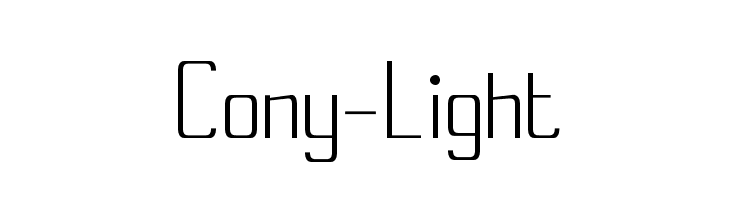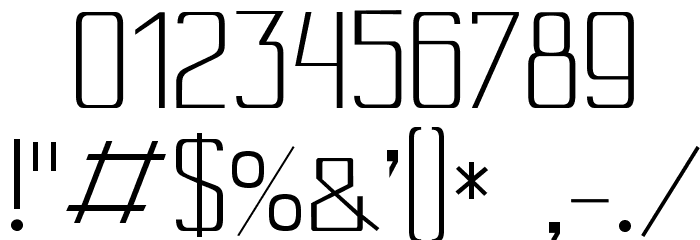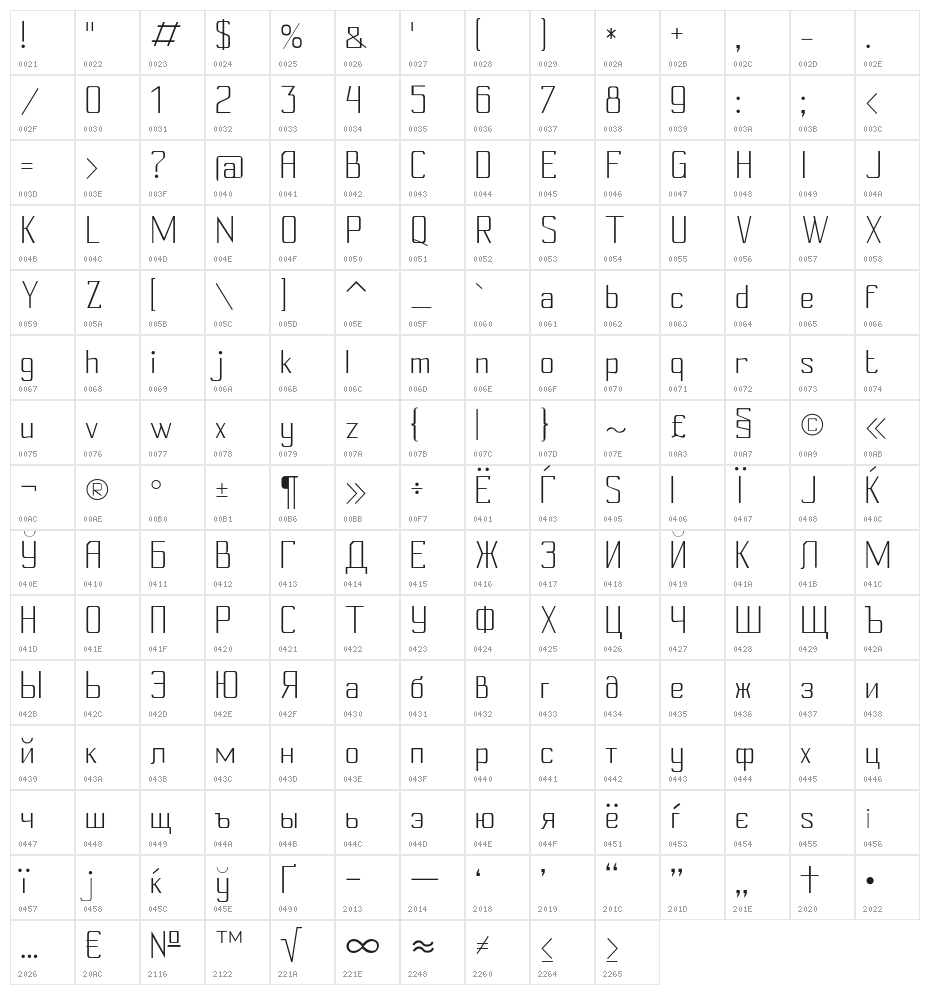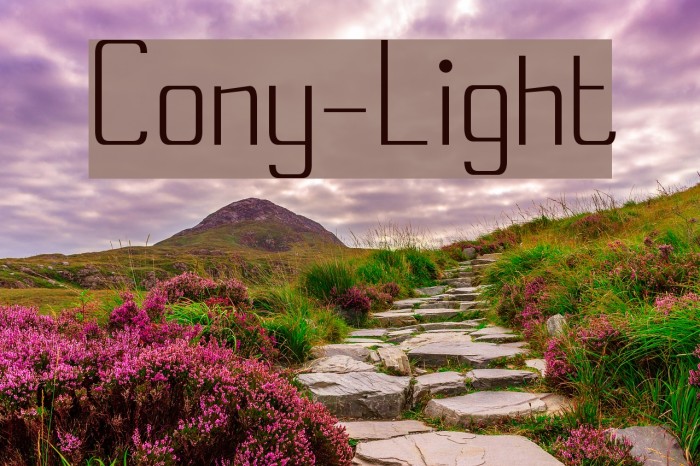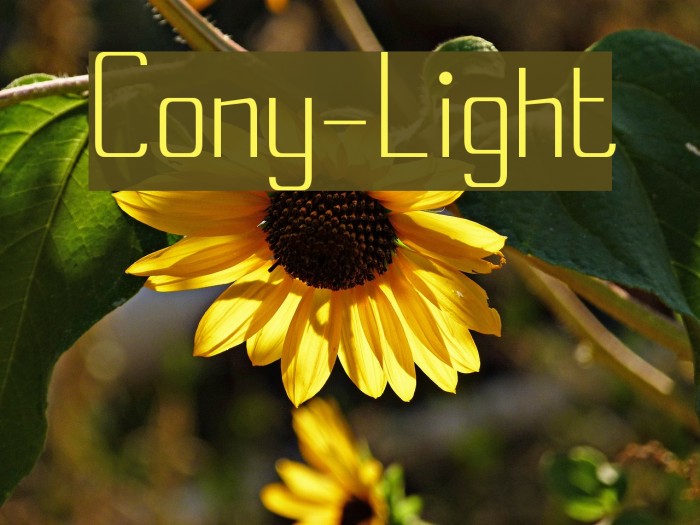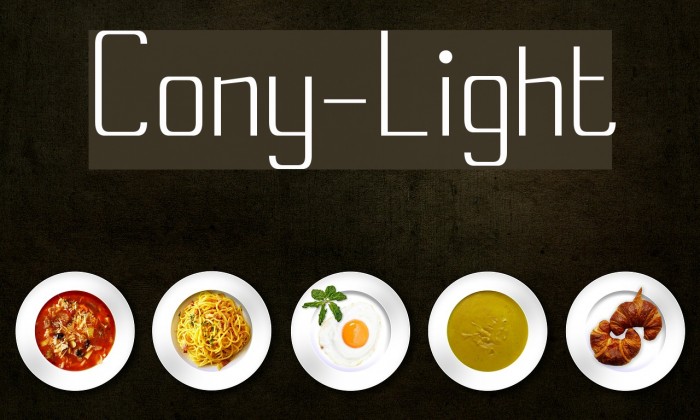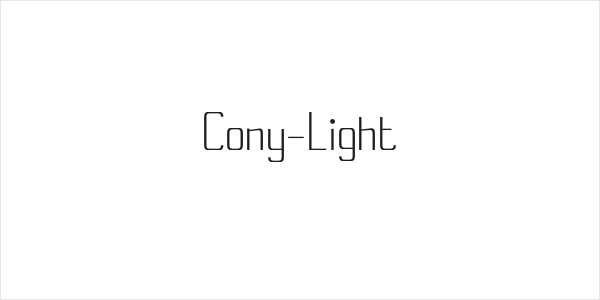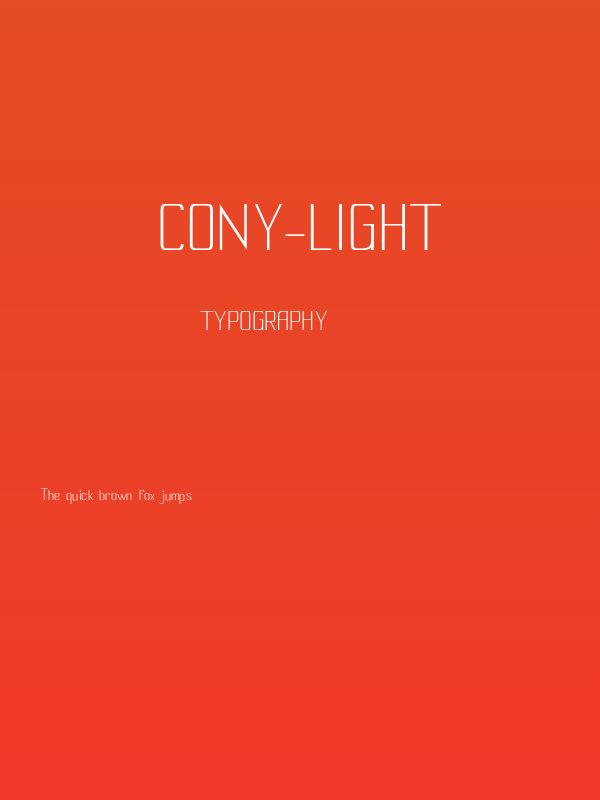
Cony-Light Font
Cony-Light Description
This font features a clean and modern design with a geometric structure. The characters are composed of straight lines and sharp angles, giving it a technical and precise appearance. The uppercase letters are tall and narrow, while the lowercase letters maintain a consistent height, contributing to a uniform look. The numerals are clear and easy to read, with a similar geometric style. Special characters are designed to match the overall aesthetic, ensuring a cohesive appearance across all glyphs. This font is suitable for projects that require a contemporary and minimalist touch.
| Proposed Projects | Ideal for tech branding, modern posters, digital interfaces, and minimalist design projects. |